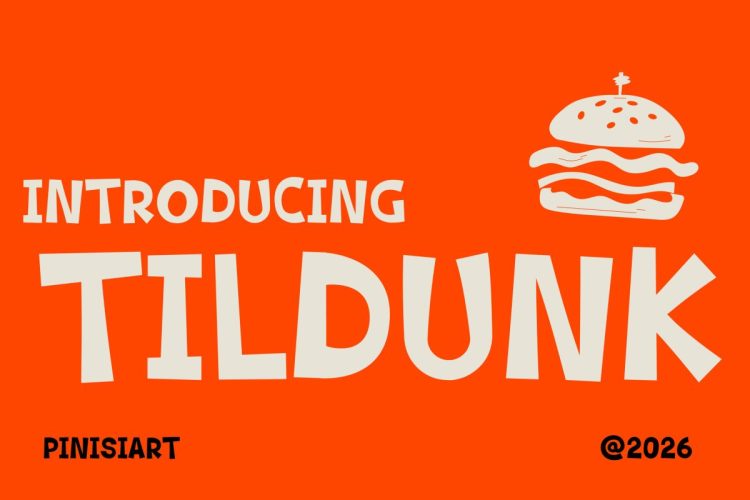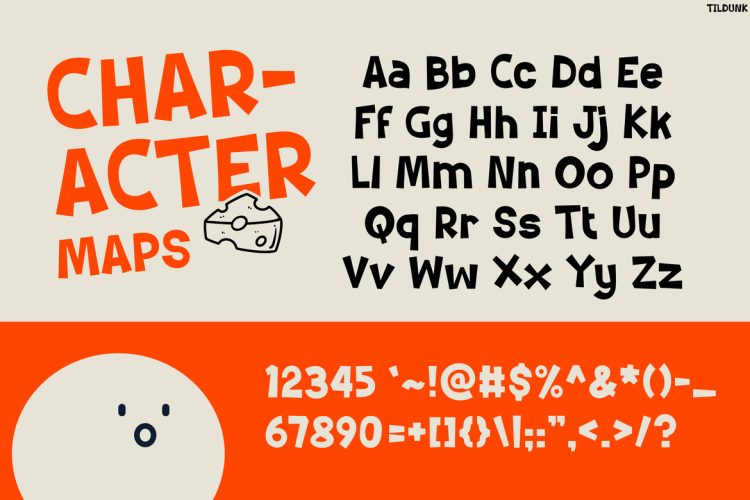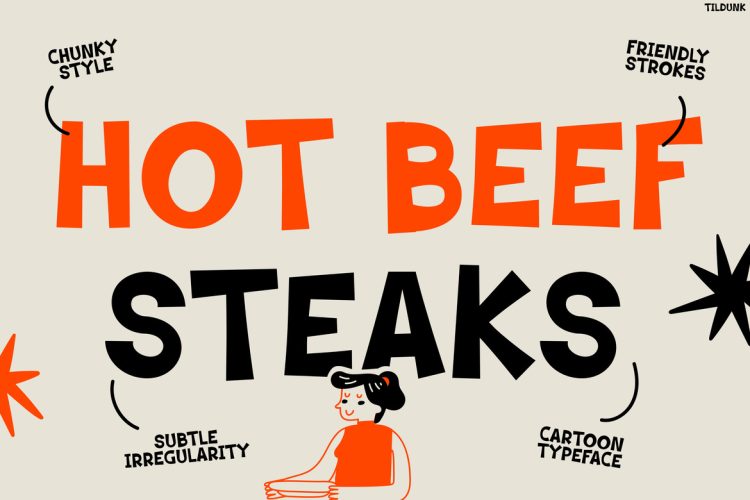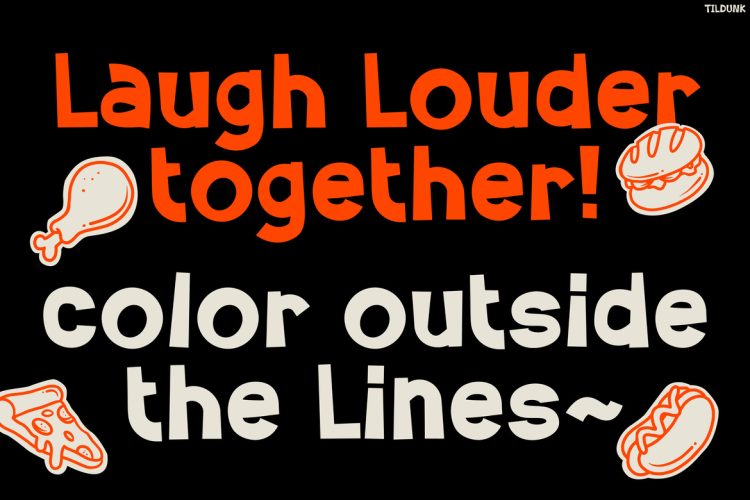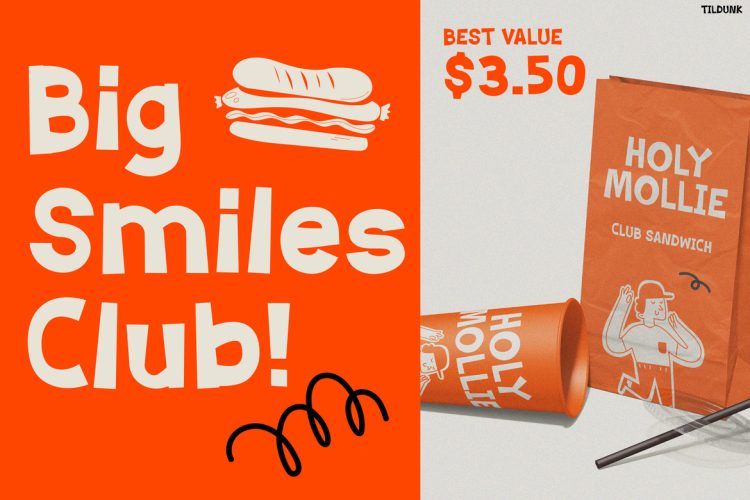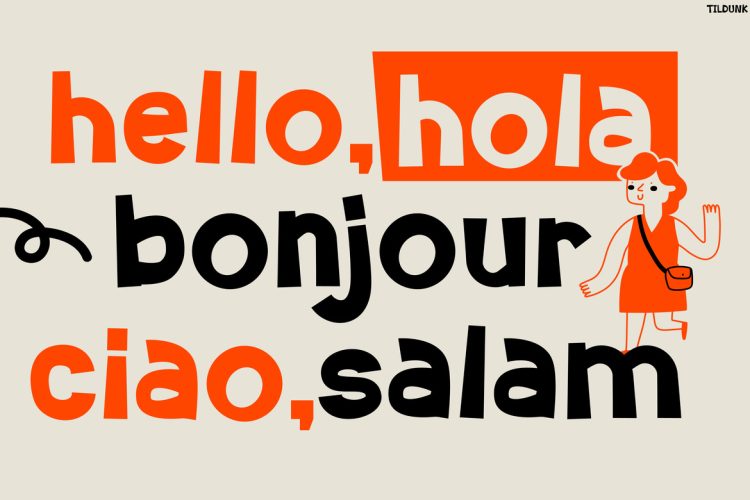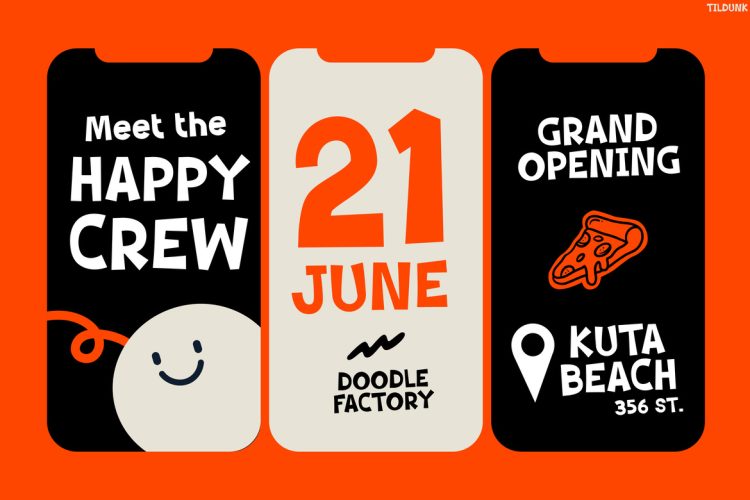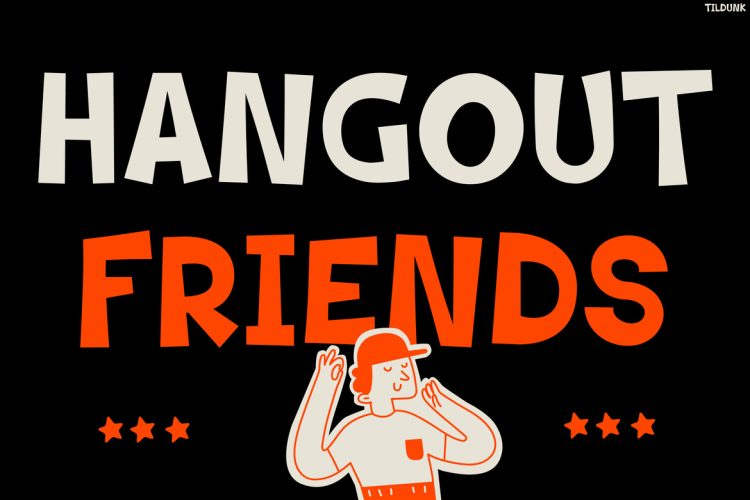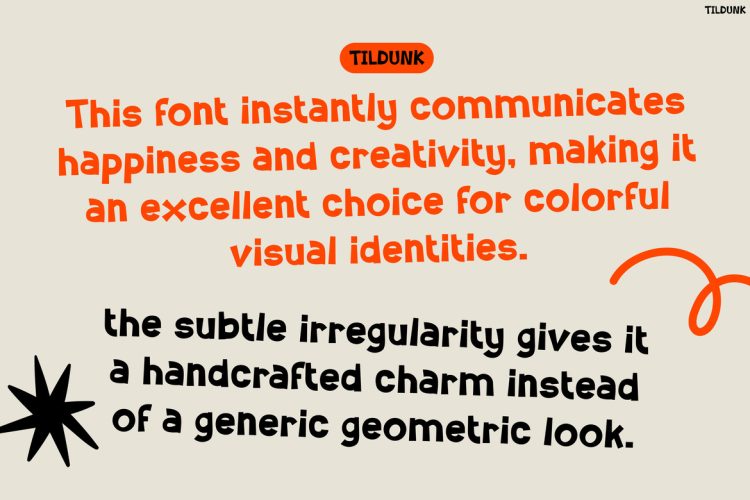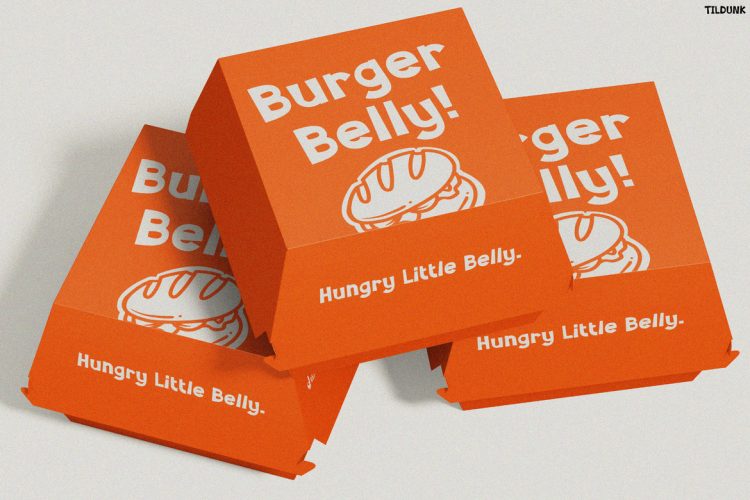
Tildunk โ Happy Kids Display Font
Kids Font Tildunk is a joyful display font designed to fill every project with smiles, positive energy, and playful personality. Not only does it feature chunky handwritten letterforms, but it also blends rounded shapes with quirky imperfections that create a warm and approachable look. Moreover, its bold style instantly grabs attention without sacrificing readability. In addition, every character feels lively and expressive, making headlines look cheerful and memorable. Furthermore, the handcrafted appearance adds a natural charm that feels authentic and inviting. As a result, Tildunk turns simple words into eye-catching visuals full of happiness. Meanwhile, its versatile design fits both print and digital media with ease. Therefore, it is an excellent choice for brands that want to communicate fun, creativity, and friendliness.
Kids Font Tildunk Perfect For
Tildunk is made for projects that need a playful and energetic voice. Whether you’re designing kids’ products, food packaging, cafรฉs, burger shops, snack branding, school campaigns, toy packaging, event posters, social media graphics, or family-friendly promotions, this font creates an instant connection with audiences. Likewise, its bold handwritten style makes every title feel more personal. Furthermore, the playful rhythm keeps layouts dynamic and engaging. Consequently, your branding becomes more memorable and approachable. At the same time, Tildunk adapts beautifully to logos, menus, packaging, merchandise, and promotional materials.
Who Can Use It?
- Kids & Family Brands
- Food & Beverage Businesses
- Burger & Cafรฉ Owners
- Toy & Snack Brands
- Packaging Designers
- Social Media Creators
- Event Organizers
- Graphic Designers
- Creative Agencies
Make Every Design Smile
If you want your designs to look happier, friendlier, and impossible to ignore, Kids Fontย Tildunk is the perfect choice. Therefore, add this playful font to your creative collection today. Not only will it brighten your branding, but it will also help your message feel more welcoming and memorable. Ultimately, Tildunk transforms everyday designs into cheerful experiences that people love to see.